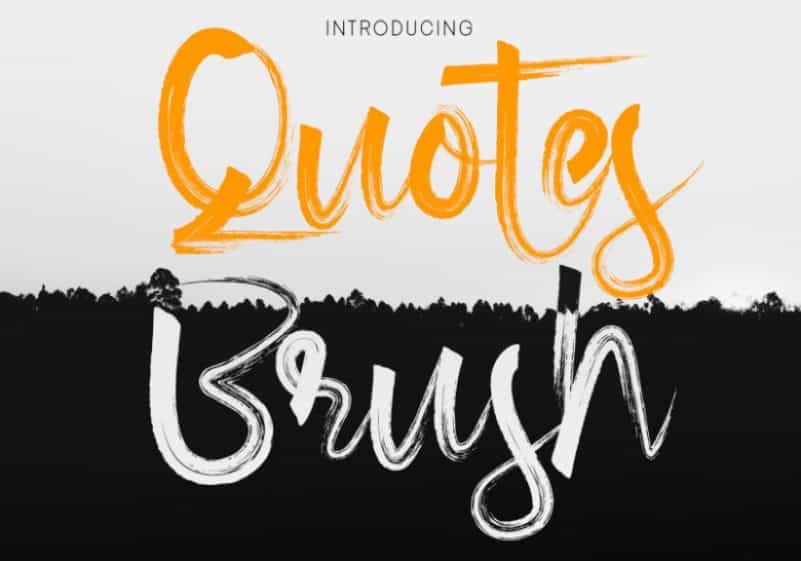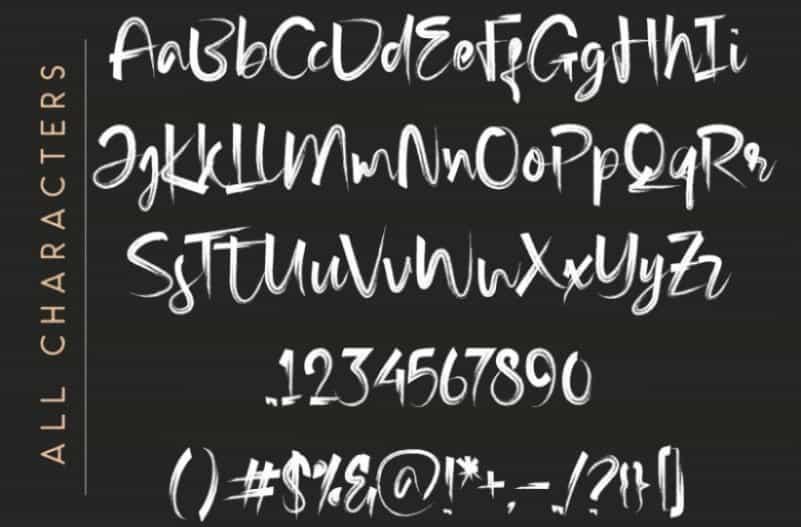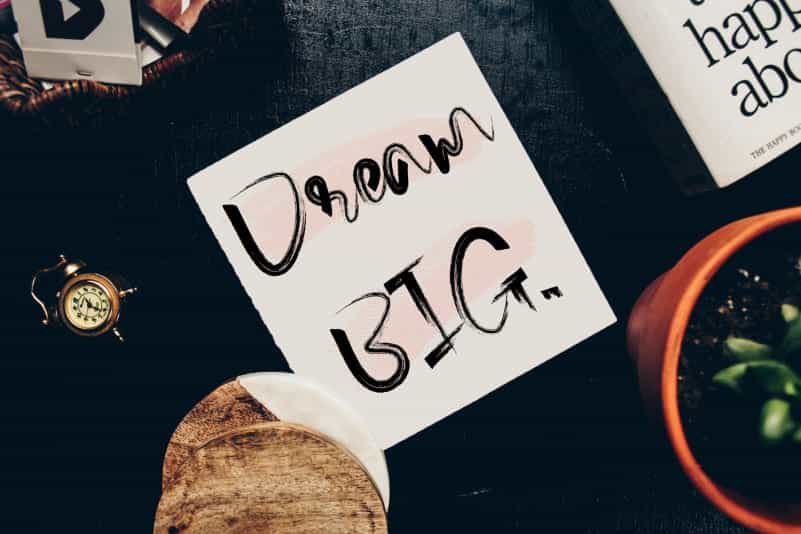
Discover Quotes Brush Font, part of the Brush collection—a versatile and unique font perfect for adding a personal touch to your projects. Download it for free and enjoy crafting designs with style, from invitations to social media posts. This font is available exclusively for personal use, giving you the freedom to create without limits. Unlock your creativity with Quotes Brush Font today!
Meet Quotes Brush Font. A textured brush font crafted with brush strokes for a hand made look. The font features textures and letterforms to mimic the feel of a real brush. This versatile font is ideal for a range of projects including invitations, stationery, social media posts, logos, weddings, branding efforts. Add some swashes. Pair it with serif fonts to elevate your project.